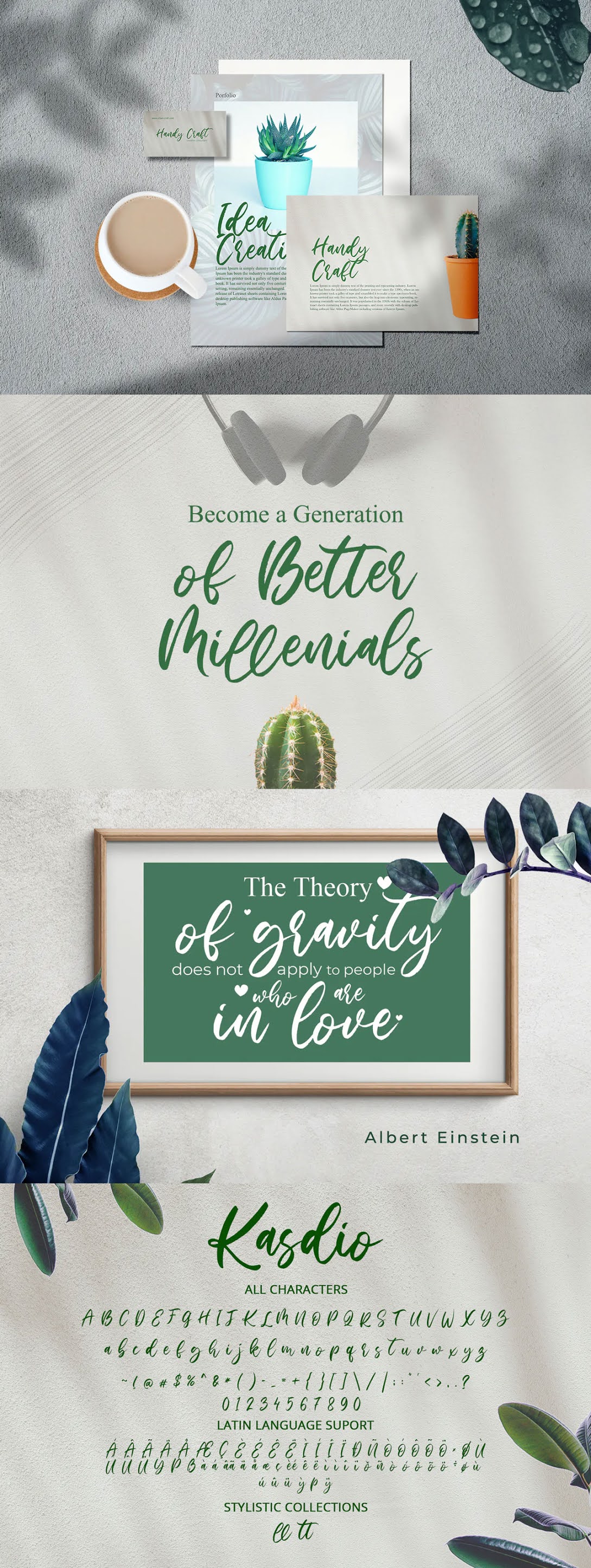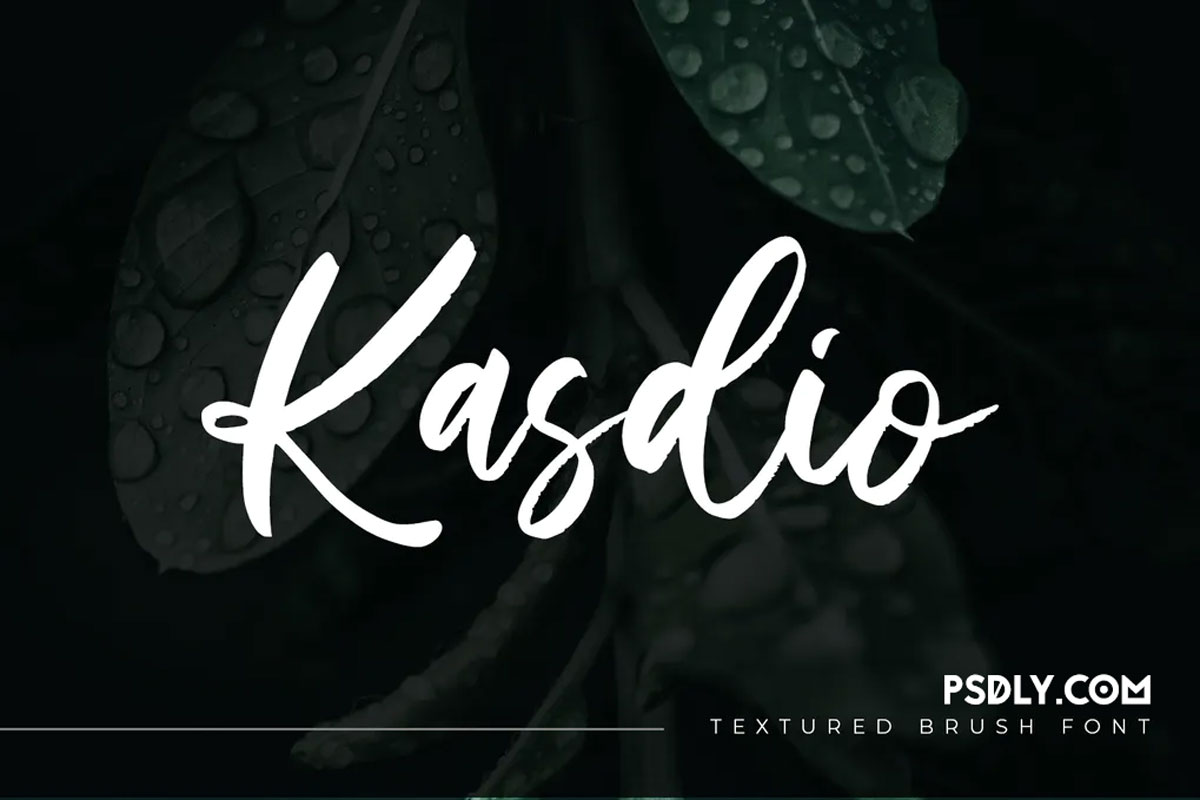
Kasdio Casual Brush Font
Kasdio - Casual Brush Font
Kasdio Casual Brush Font Free Download. Rather is a casual brush font. Made for any professional project branding. Every letter has a unique and beautiful touch.
Features:
• Beautiful Ligatures
• Multilingual Support
• Numerals and Punctuation